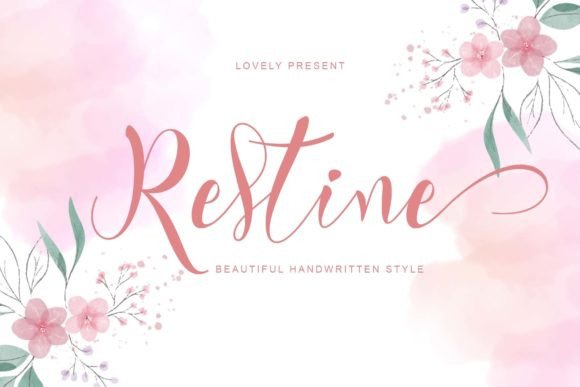
Welcome to the world of Restine, where elegance and beauty intertwine to create a masterpiece of typography. This exquisite handwritten font is a testament to the art of penmanship, capturing the essence of romance, joy, and celebration.
Imagine your wedding invitations adorned with the graceful strokes of Restine, evoking a sense of timeless elegance that will captivate your guests from the very first glimpse. Let the delicate curves and flourishes of this font narrate the story of your love, leaving an indelible mark on their hearts.
Beyond weddings, Restine's versatility shines through in countless applications. Create enchanting Christmas cards that convey the warmth and magic of the season. Design posters and banners that exude sophistication and charm, capturing the attention of all who lay eyes upon them. Elevate your branding with a logo that speaks volumes about your dedication to quality and excellence.
With Restine at your fingertips, your creative possibilities are boundless. Unleash your imagination and craft stunning designs that leave a lasting impression. Whether it's stickers that add a touch of whimsy to your everyday life or branding materials that exude professionalism, Restine is your perfect partner.
This font is more than just a collection of characters; it's an expression of artistry, a reflection of your unique style and taste. With its comprehensive character set, including uppercase, lowercase, ligatures, swash, titling, numerals, punctuation, and multilingual support, Restine ensures that your creative vision knows no bounds.
Join the countless designers, crafters, and entrepreneurs who have embraced the allure of Restine, transforming their creative projects into masterpieces. Experience the joy of creating with a font that embodies elegance, versatility, and sheer beauty.